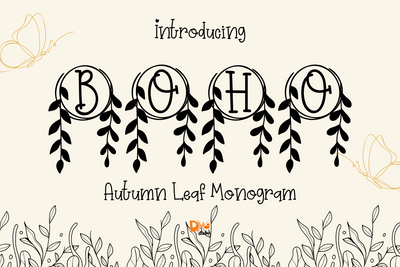
Autumn Leaf Monogram
Autumn Leaf Monogram – Serif Monogram Font with Seasonal Leaf Embellishments
Autumn Leaf Monogram is a graceful serif monogram font featuring elegant uppercase letters adorned with decorative autumn leaves. Designed to capture the cozy, rustic charm of fall, this font blends natural warmth with classic structure—ideal for personalized gifts, wedding signage, seasonal decor, and custom branding projects.
Autumn Leaf Accents: Hand-drawn leaf motifs bring rich seasonal texture and organic beauty.
Elegant Serif Letterforms: Sturdy and balanced serifs make it perfect for upscale or rustic design.
Seasonal Appeal: Ideal for autumn themes, Thanksgiving crafts, and personalized fall decor.
Ideal For: Wedding invitations, Thanksgiving designs, Cricut crafts, packaging, farmhouse decor, and personalized monogram projects.